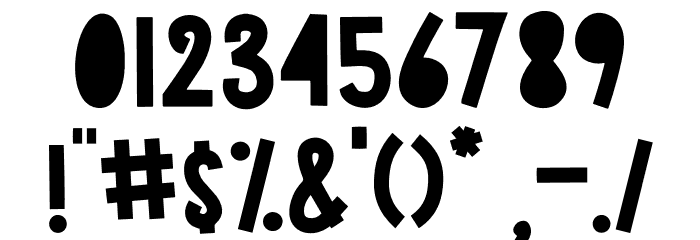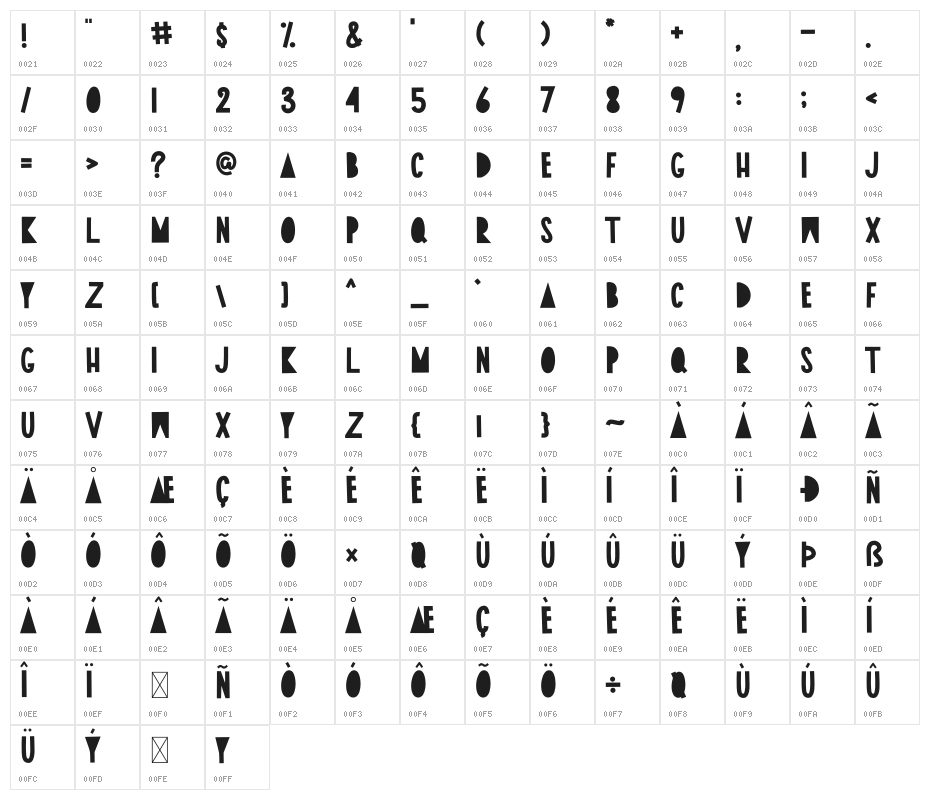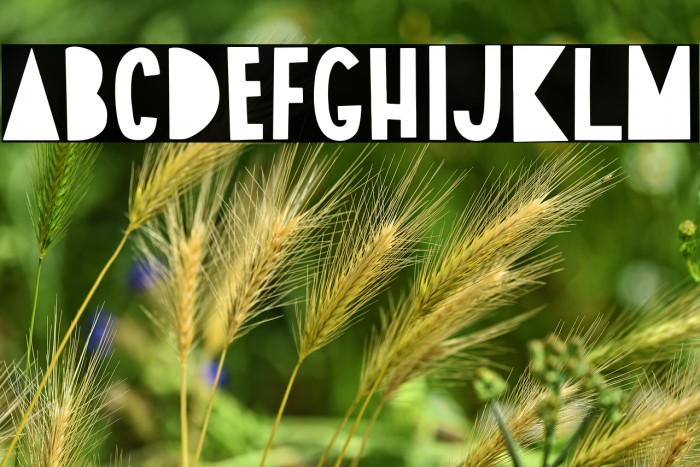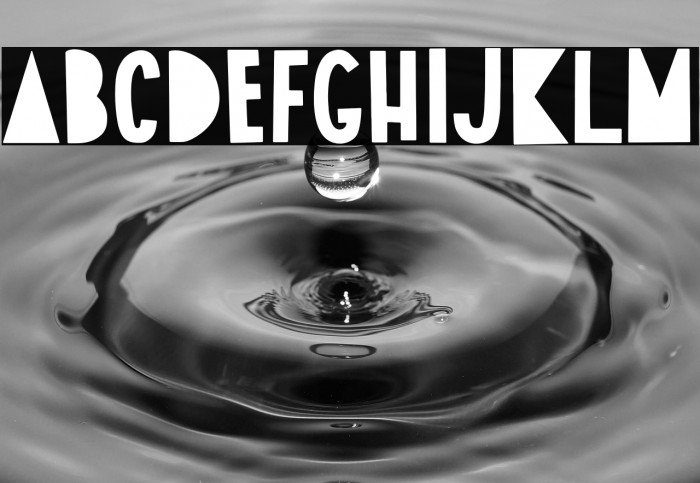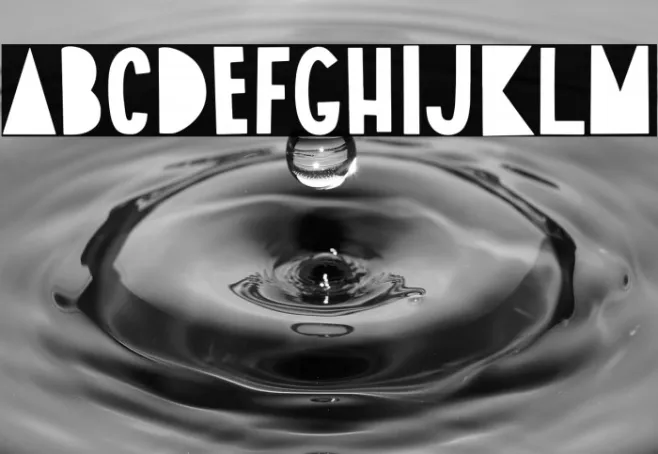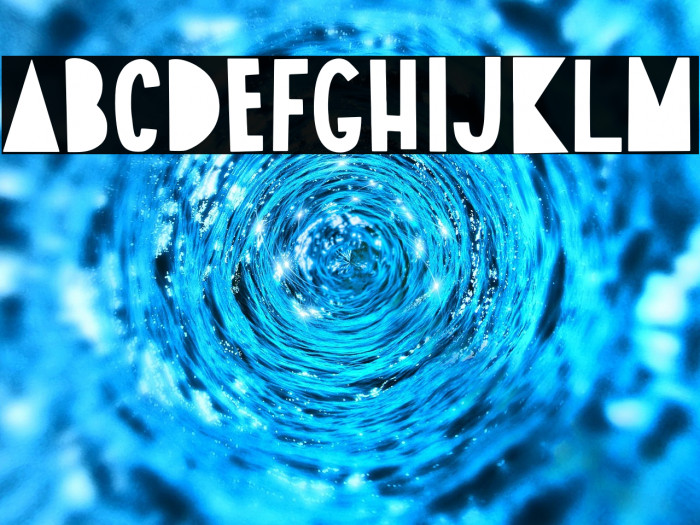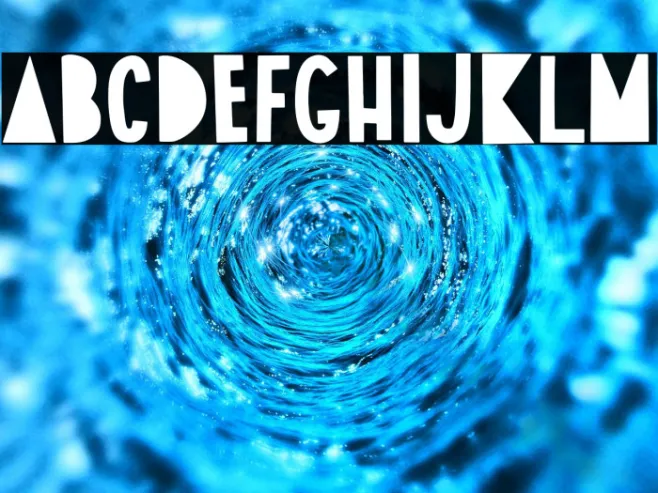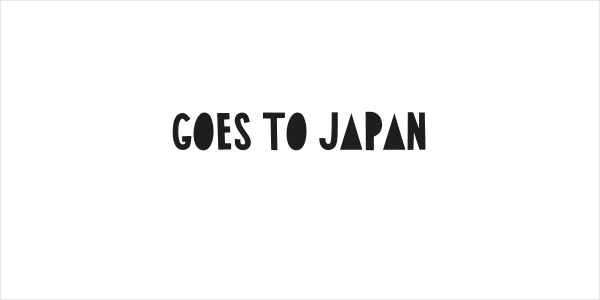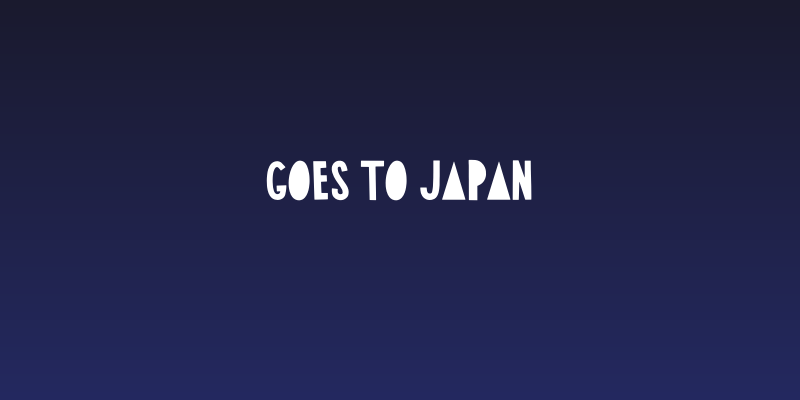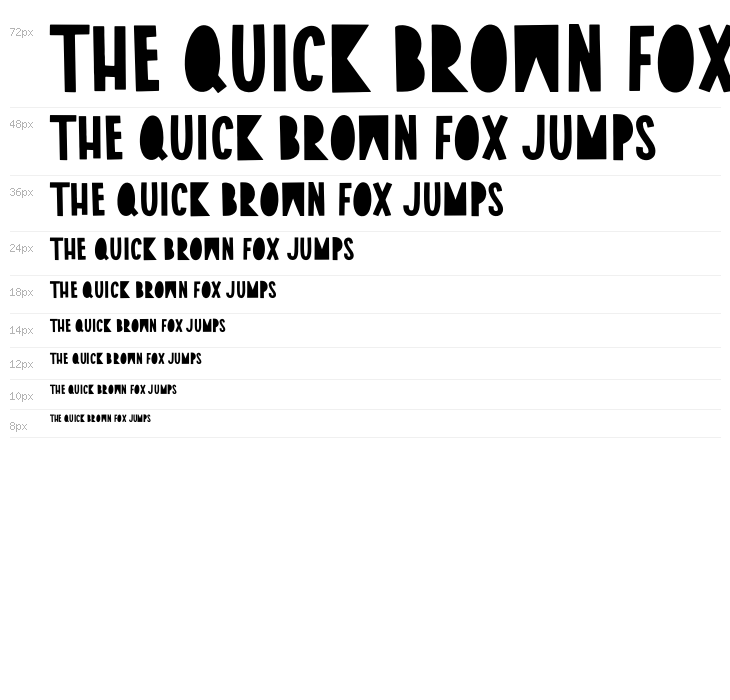
Goes To Japan Font
Goes To Japan Description
This font features a bold and playful design with geometric shapes and a strong presence. The uppercase letters are characterized by their thick strokes and angular forms, giving them a dynamic and energetic feel. The lowercase letters maintain a similar style, ensuring consistency throughout the typeface. Numbers and special characters are crafted with the same boldness, making them stand out. The overall design is eye-catching and suitable for projects that require a fun and engaging look.
| Overall Style | Playful, Modern |
| Proposed Projects | Ideal for posters, children's books, branding, and any project that needs a lively and bold typeface. |